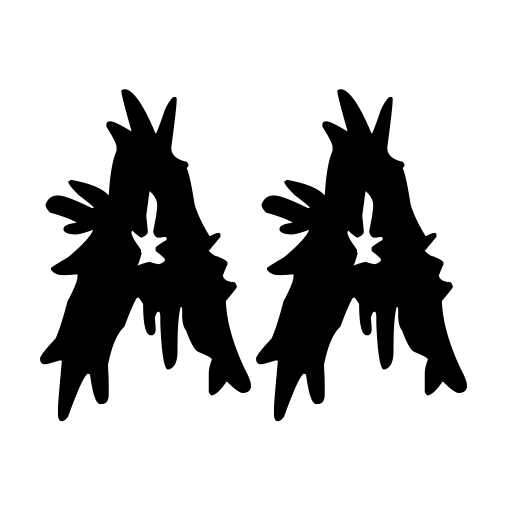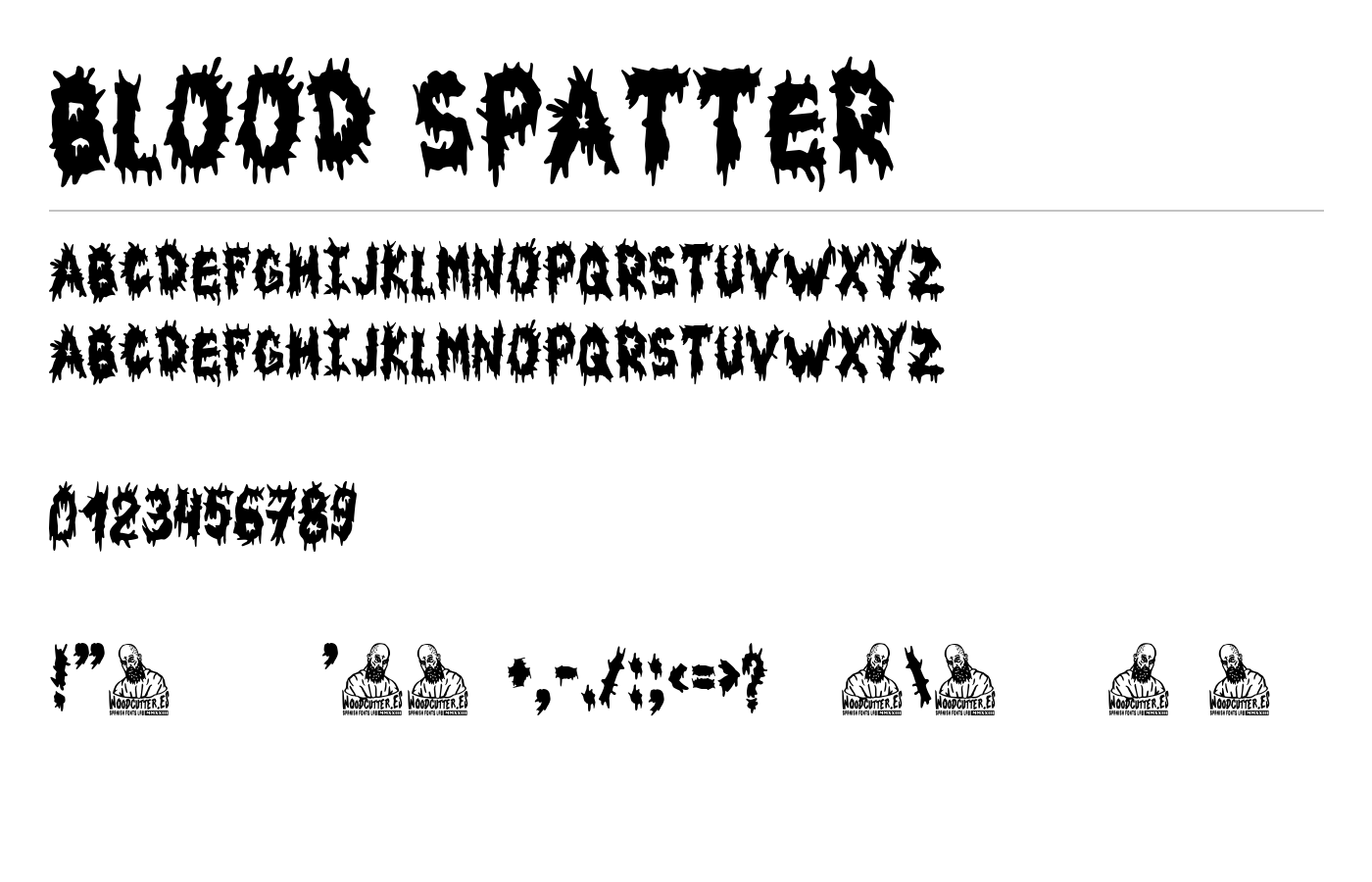
Blood Spatter Font is a bold, decorative display typeface with jagged, irregular edges that mimic dripping or splattered blood. Its heavy weight and spooky, distressed design make it perfect for horror-themed projects, Halloween events, or edgy branding where a dramatic and eerie vibe is needed. This font stands out in headlines, posters, and logos that want to create a striking, intense visual impact.
Blood Spatter Font
About Blood Spatter Font
| Font family | Blood Spatter Font |